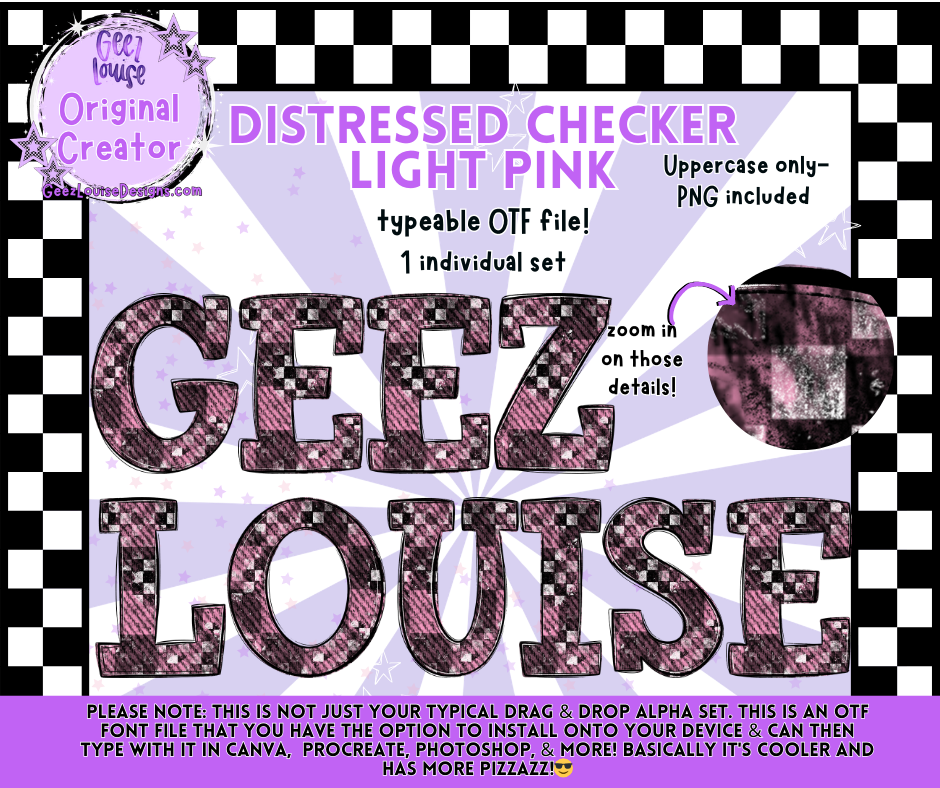
DISTRESSED CHECKER LIGHT PINK — Typeable OTF Alpha Font + PNGs
Soft, sweet, and perfectly grungy — Distressed Checker Light Pink blends boutique‑girl charm with that worn‑in checker texture your customers love. This typeable OTF font gives your designs instant personality while keeping everything clean, crisp, and print‑ready.
• Uppercase A–Z
• Distressed light‑pink checker textures
• Sharp, high‑detail edges for flawless printing